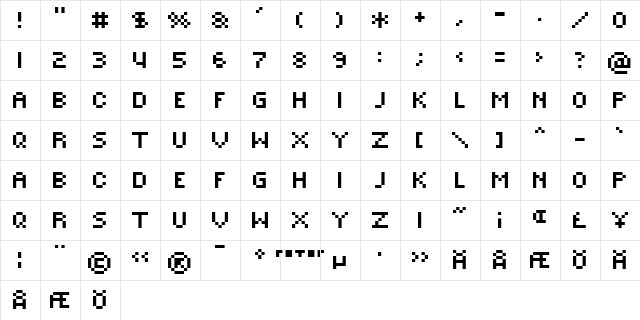
ROTORcap Regular
Design Context for ROTORcap Typeface
ROTORcap takes a measured approach to typography — its balanced proportions and neutral character make it a reliable workhorse for both digital and print work.